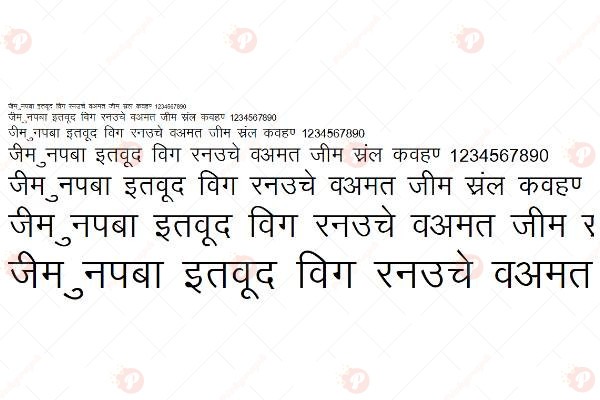
The Kurti Dev Font is a classic Devanagari typeface widely used for Hindi and Sanskrit texts. With its traditional letterforms and cultural essence, this font is perfect for religious books, festival posters, invitations, temple banners, devotional artwork, and cultural branding.
Its clean and authentic Devanagari design makes it suitable for both print and digital projects, ensuring clarity, readability, and a divine aesthetic in every use.
Script: Devanagari (Hindi/Sanskrit)
Style: Traditional / Cultural / Religious Typeface
Perfect for: Hindi Documents, Religious Posters, Invitations, Devotional Books, Cultural Branding & Packaging
Bring authenticity and spirituality to your designs with the Kurti Dev Font.
| Optimum Size | Large (Display / Poster) |